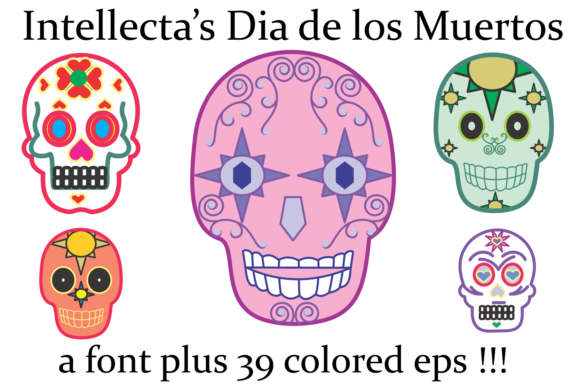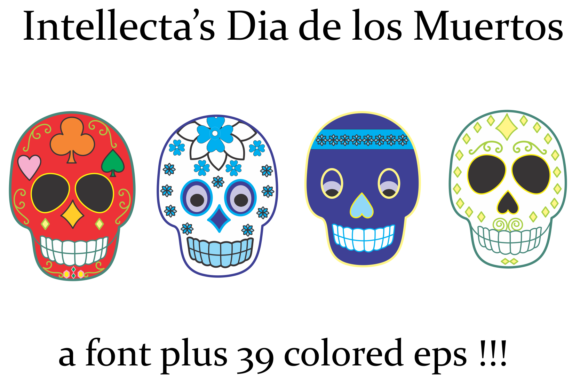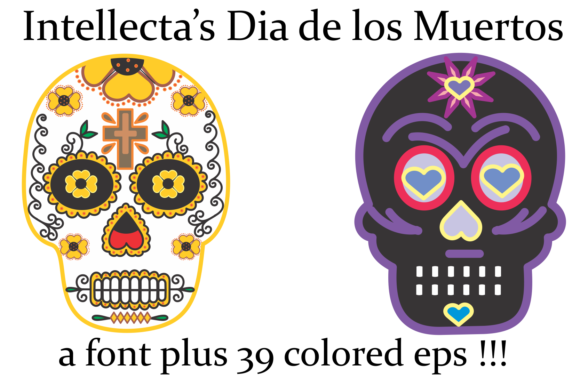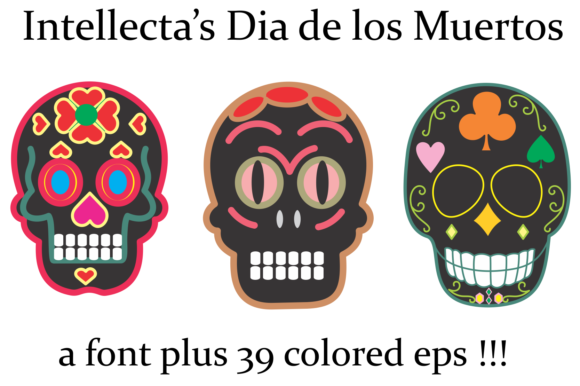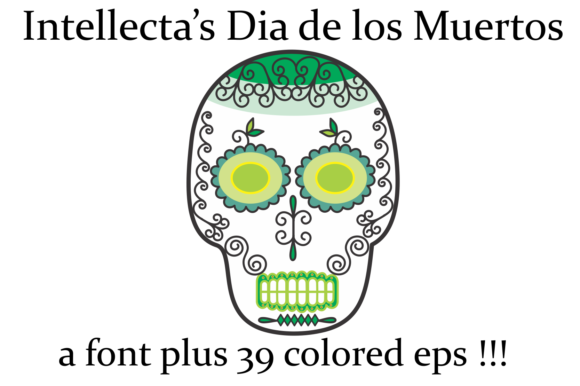
Dia De Los Muertos Font: A Vibrant Celebration of Life and Art
Dia De Los Muertos, which translates to Day of the Dead, is a traditional Mexican celebration that honors loved ones who have passed away. However, it’s not a somber occasion; instead, it’s a lively fiesta filled with vibrant colors, delicious food, and joyful music. The iconic symbol of this celebration is the skull, which is often depicted in a humorous and playful way. For designers and crafters, the Dia De Los Muertos Font is a fantastic resource that captures the essence of this festive holiday.
The Story Behind the Font
The Dia De Los Muertos Font is a creative work by Iza W, an artist who was inspired by the colorful and lively spirit of the Mexican celebration. This font collection features a variety of skulls, each with its own unique personality and design. The skulls are not meant to be morbid or scary; instead, they’re used as humorous epitaphs for people who are still alive, adding a playful touch to the celebration.
A Versatile Resource for Artists and Crafters
The Dia De Los Muertos Font is an excellent resource for artists, designers, and crafters who want to add a touch of Mexican flair to their projects. The font collection can be used for a wide range of applications, including:
What You Get: A Collection of Skulls and Bonus EPS Files
When you get your hands on the Dia De Los Muertos Font, you’ll receive a collection of skull designs that are sure to inspire your creativity. But that’s not all! As an extra bonus, you’ll also get a pack of 39 high-definition EPS files featuring colored skulls. These EPS files are perfect for:
Why You’ll Love the Dia De Los Muertos Font
The Dia De Los Muertos Font is a unique and versatile resource that offers a lot of creative possibilities. Here are just a few reasons why you’ll love it:
- The font collection is designed to be fun and playful, making it perfect for projects that require a lighthearted touch
- The skulls are intricately designed with vibrant colors and details, making them stand out in any project
- The EPS files are high-quality and versatile, making them suitable for a wide range of applications
Tips for Using the Dia De Los Muertos Font
The Dia De Los Muertos Font is a fantastic resource for designers and crafters who want to add a touch of Mexican flair to their projects. With its playful and vibrant skull designs, this font collection is perfect for a wide range of applications, from arts and crafts to commercial design projects. And with the bonus EPS files, you’ll have even more creative possibilities at your fingertips. So why wait? Get your hands on the Dia De Los Muertos Font today and start celebrating life and art!